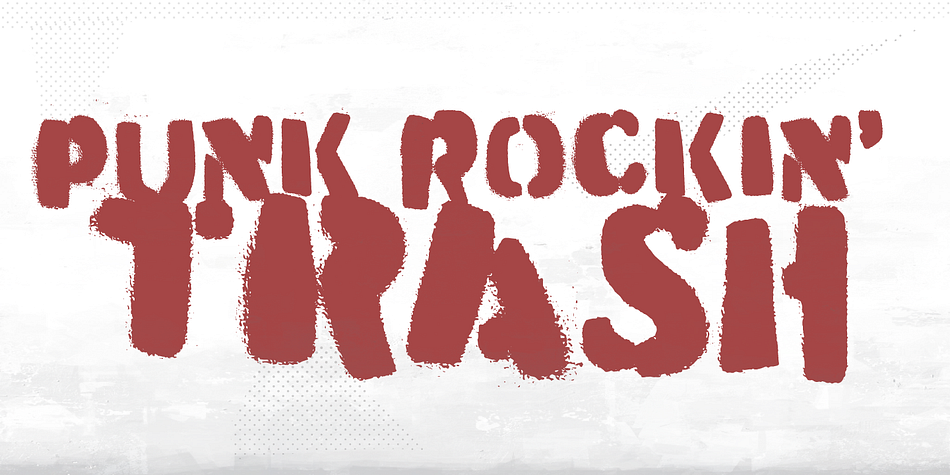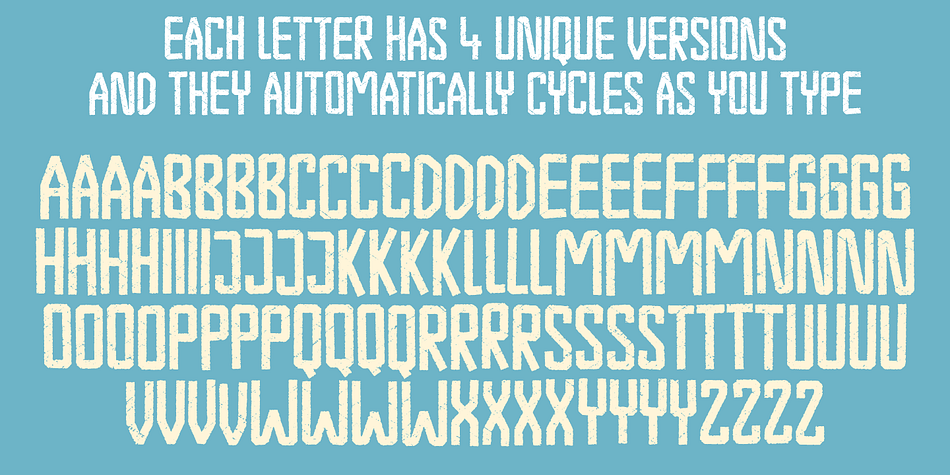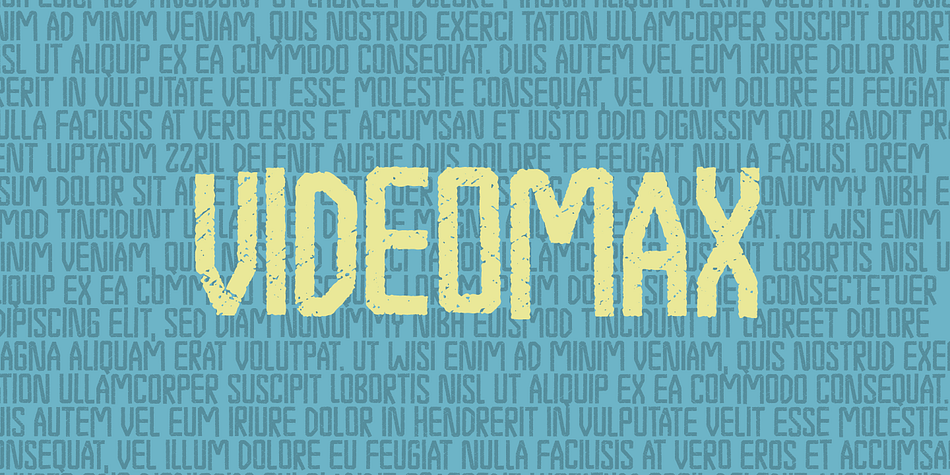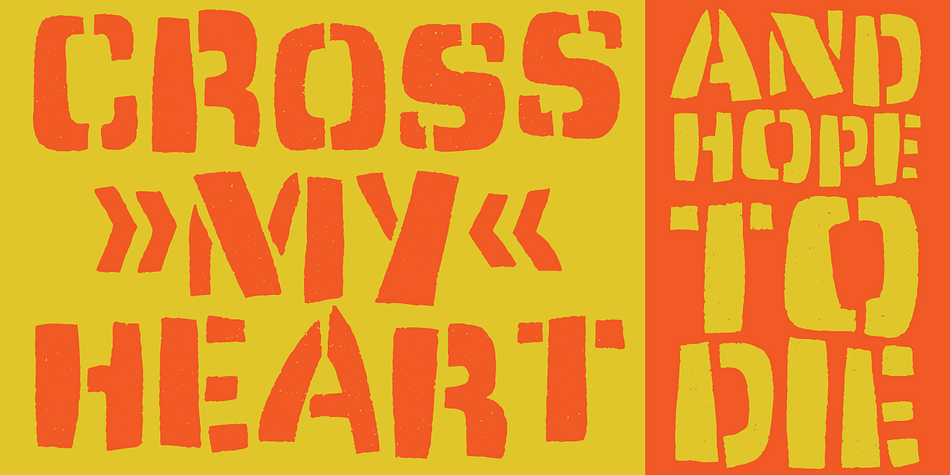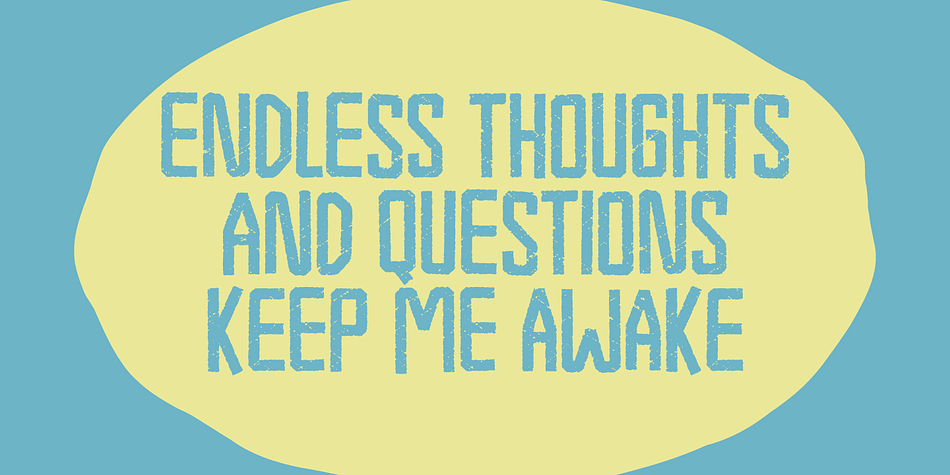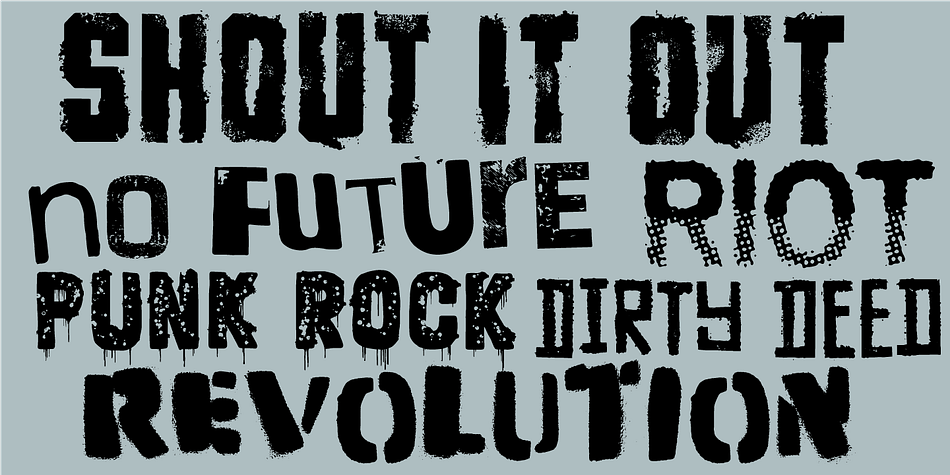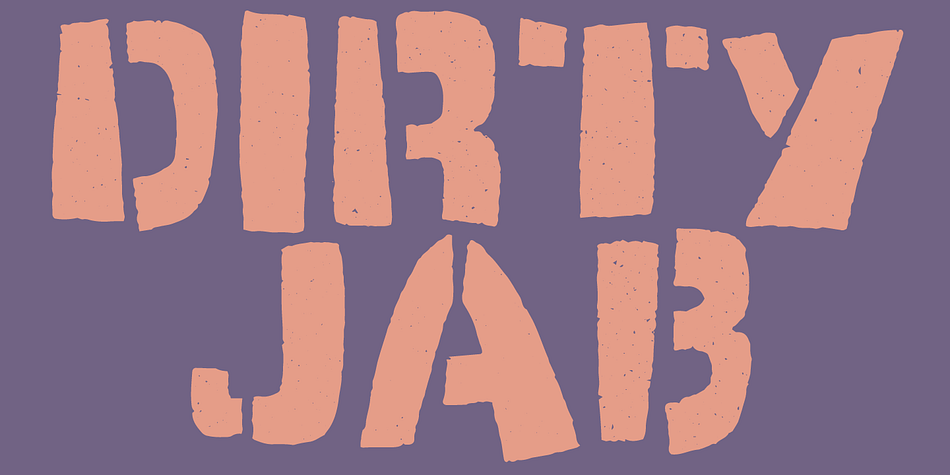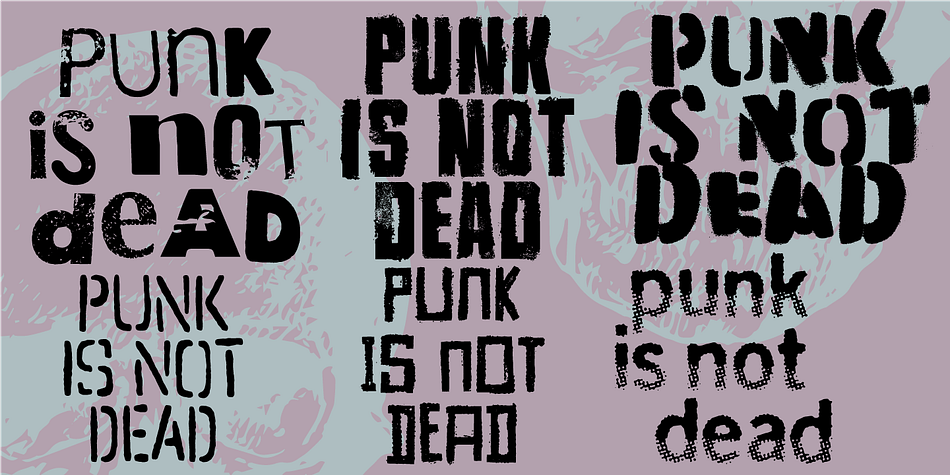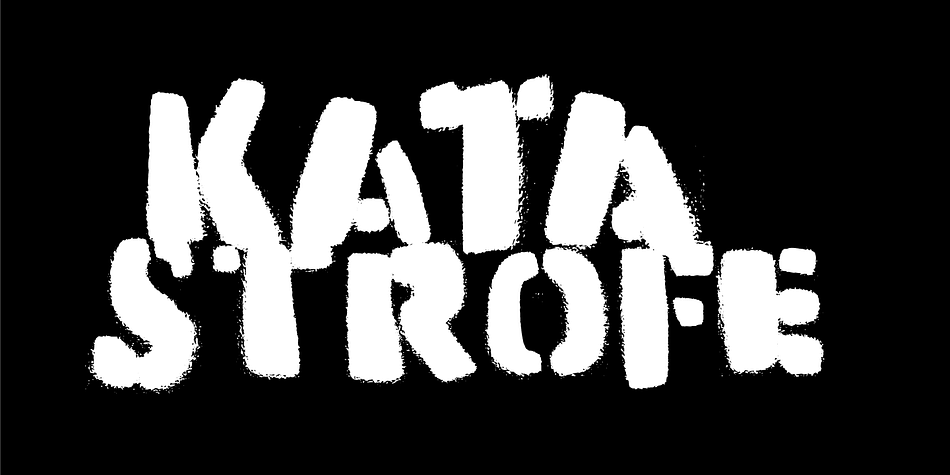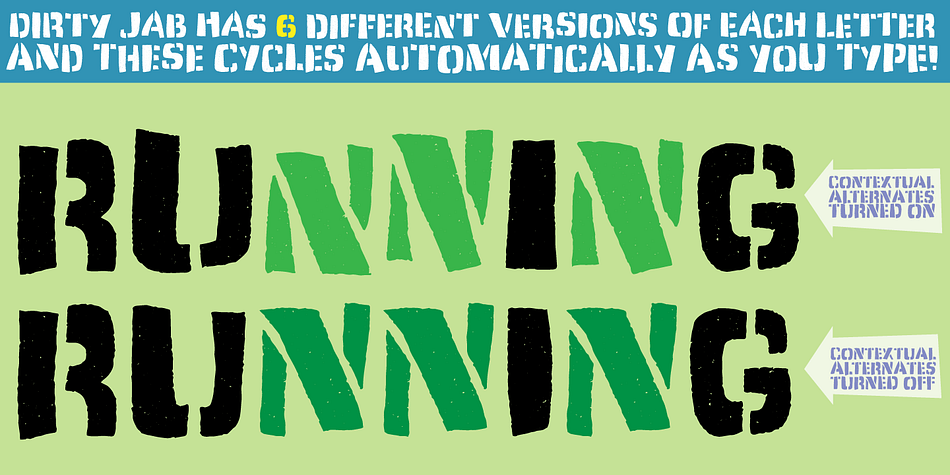
Designed by Jakob Fischer, Turmoil Trouble is a multiple classification font collection published by Pizzadude.dk.
Get ready for trouble! Here is a handpicked collection of my most messed up, bruised and battered grunge fonts!